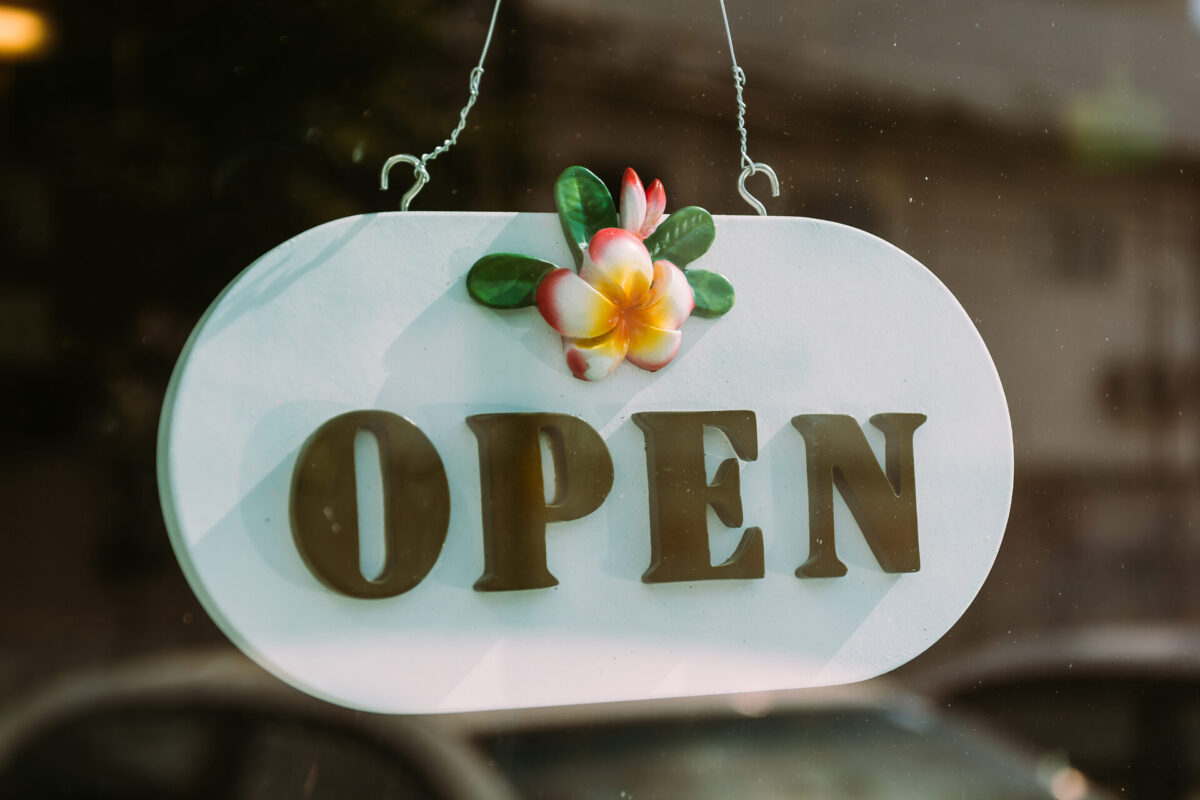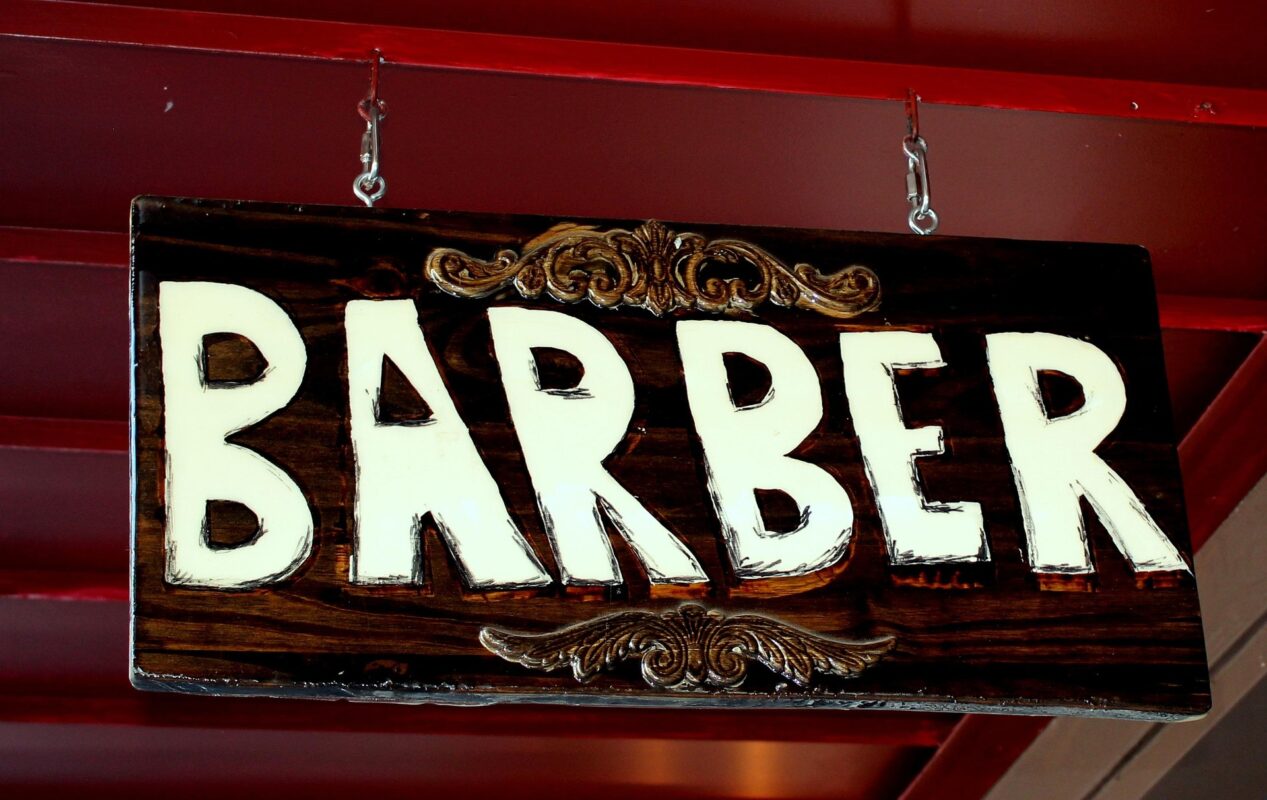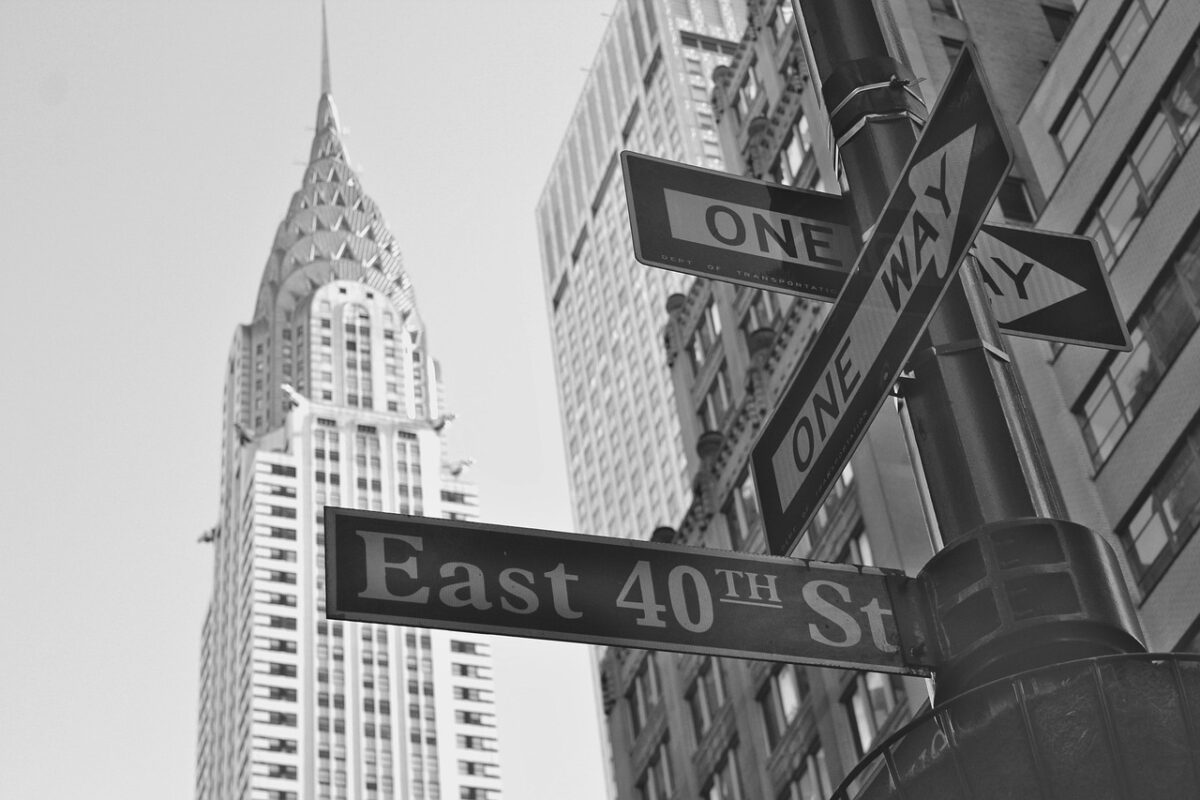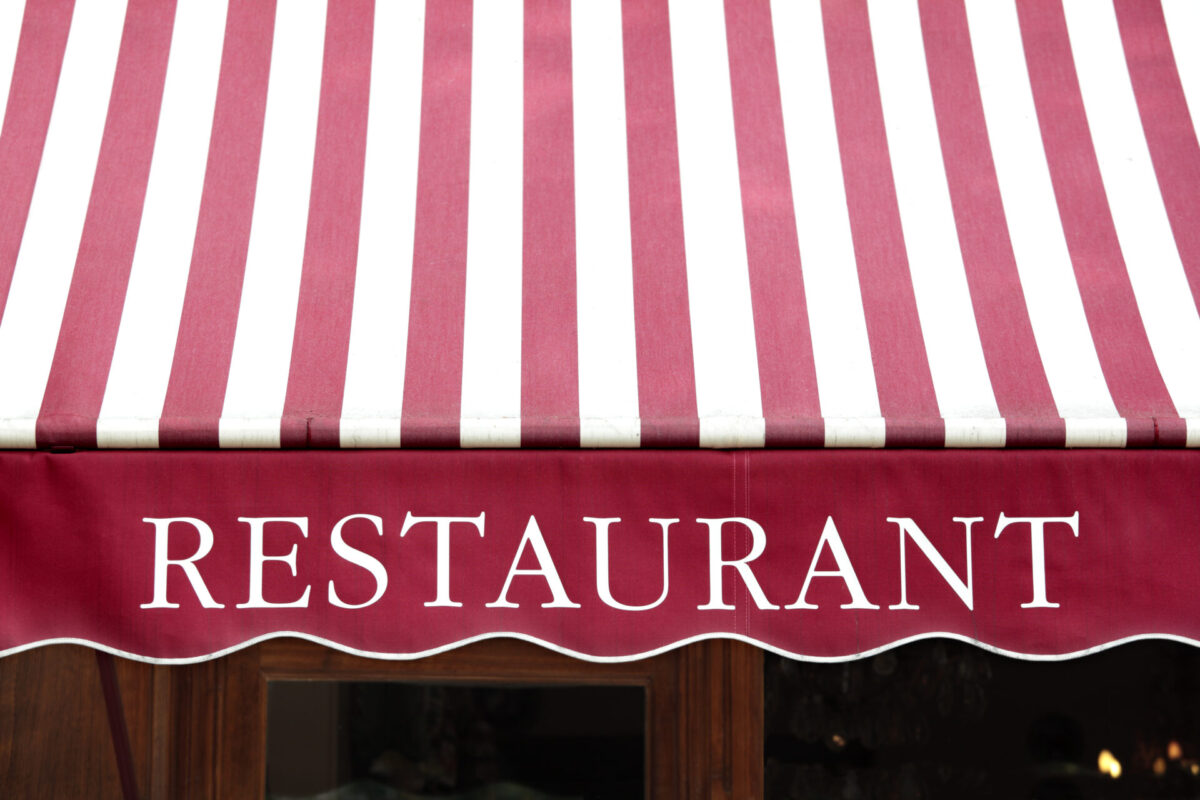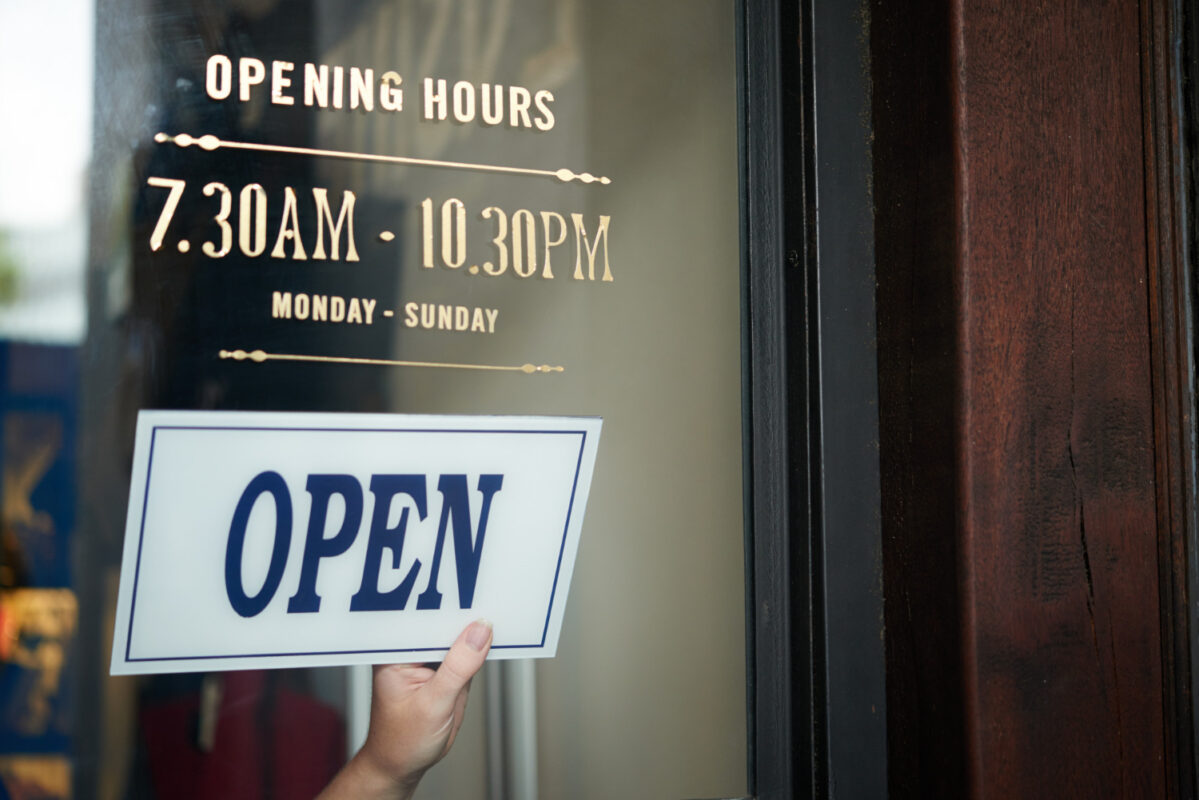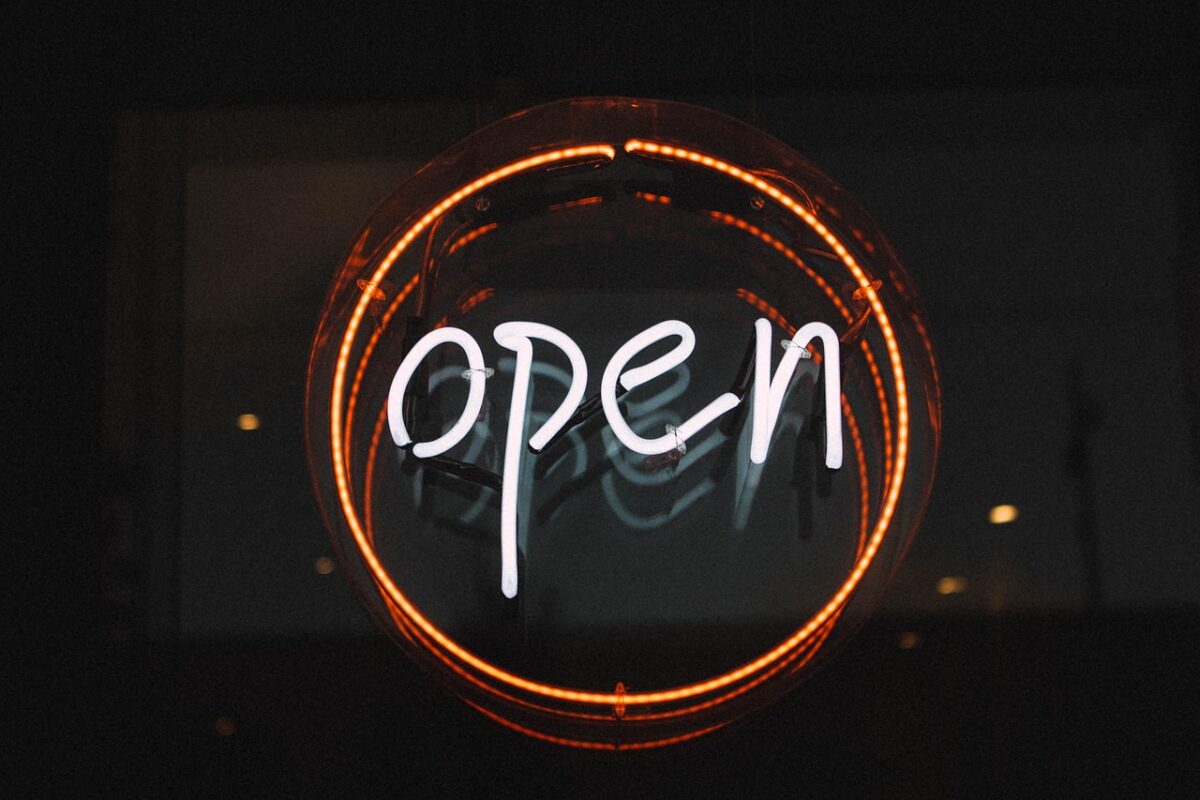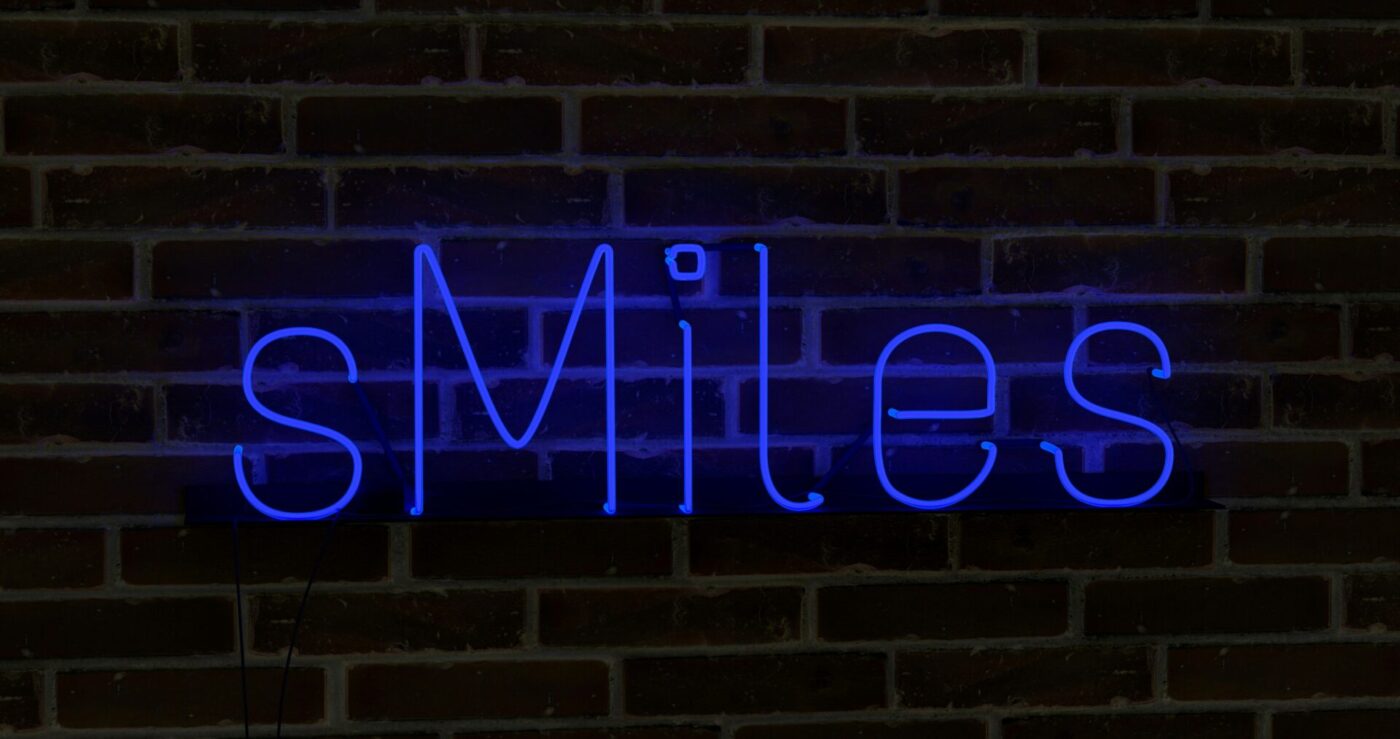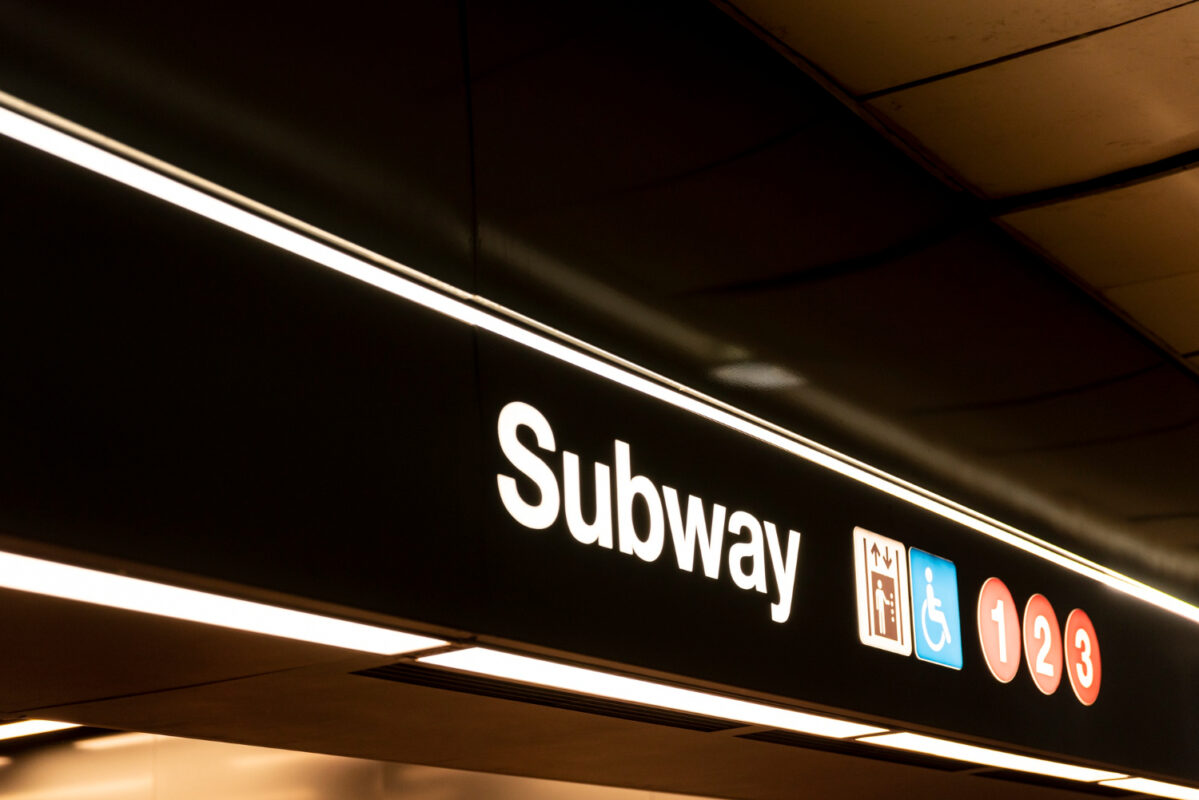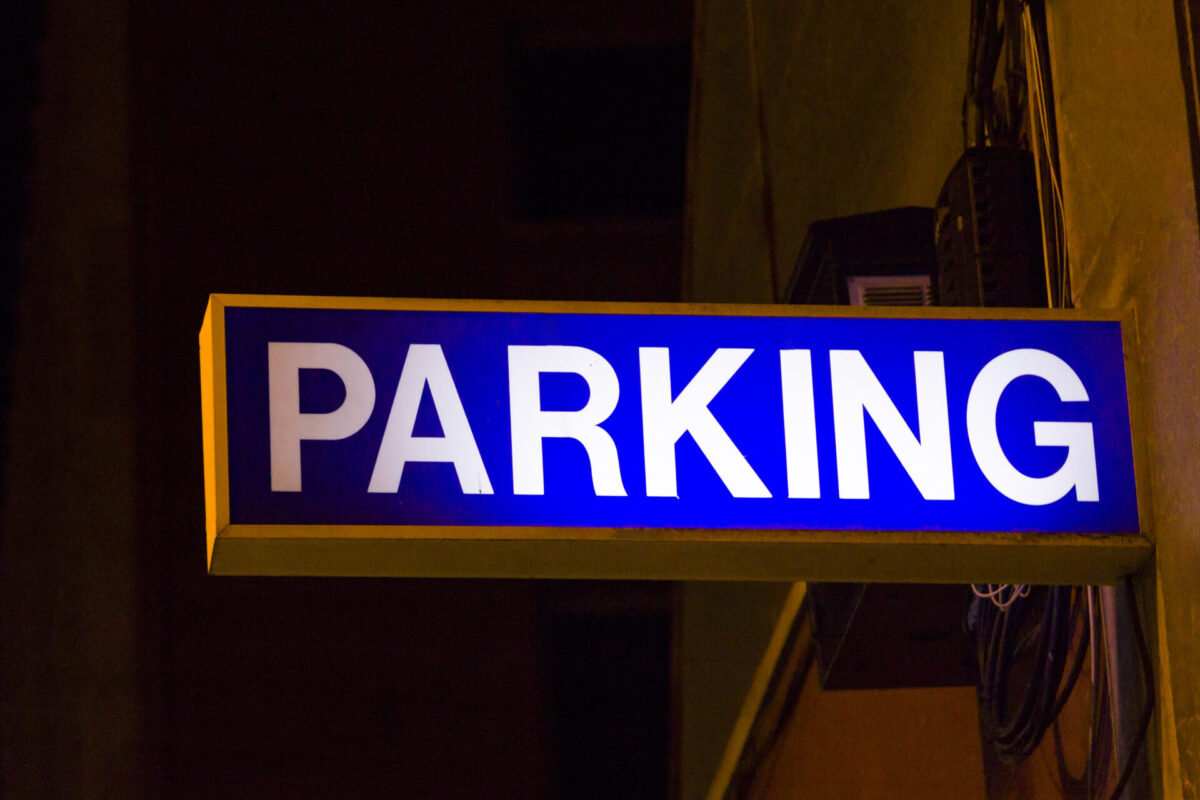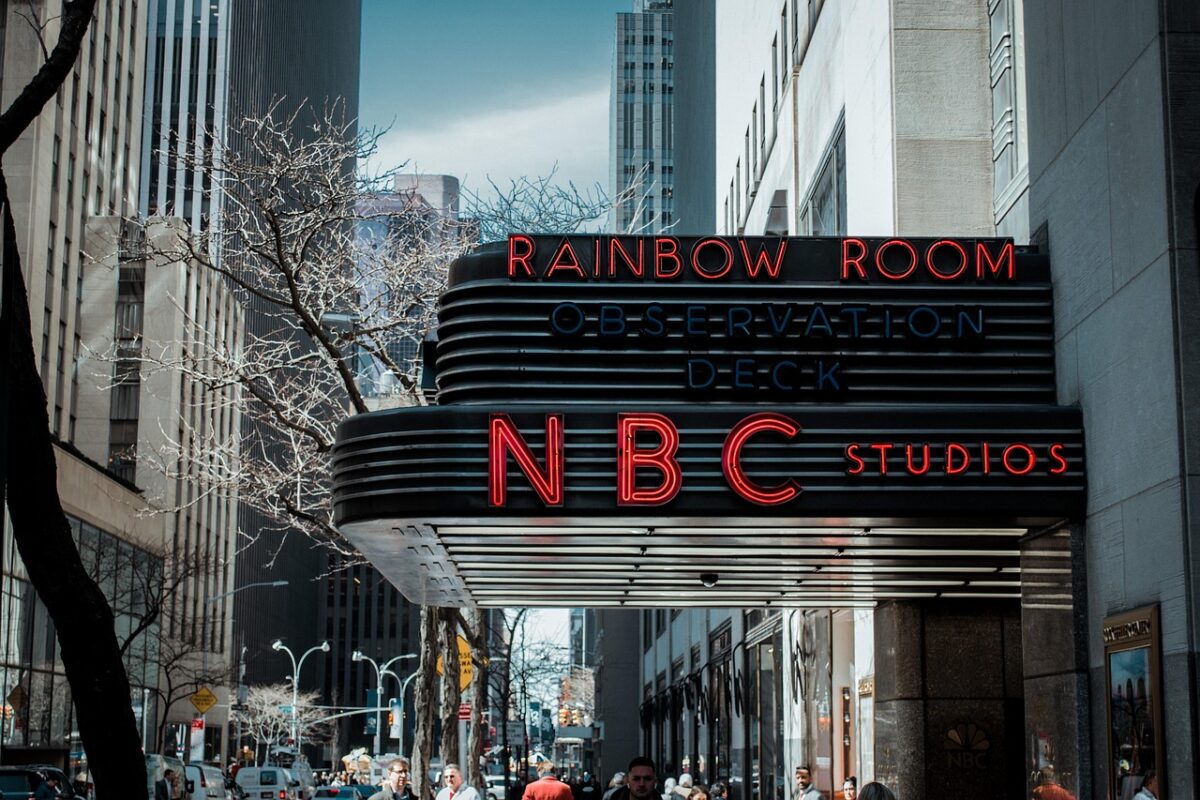
16 Profitable Sign Business Ideas That Stand Out in Any Market
Do you know that the signage business is thriving? The global signage request is projected to increase from $37.8 billion in 2025 to $57.6 billion by 2035. Outdoor signage claims roughly 63% of the market, proving its dominance. So, if you are exploring sign business ideas, keep on reading!
Key takeaways
• 3D and channel letter signs deliver dimensional branding for retail businesses, but light box signs provide a cost-effective alternative for small shops.
• Illuminated signs, such as neon, light box, pylon, and marquee displays, ensure standout business presence in high-traffic areas, while blade signs offer a pedestrian-friendly alternative for urban settings.
• Yard signs, banners, and sandwich boards work wonderfully for localized campaigns, while wall signs and canopies deliver high-impact alternatives for long-term brand recognition.
16 Sign Business Ideas to Try On
Here are 16 profitable sign business ideas to trigger your first step of success. Keep reading.
1. 3D Signs: Adding Depth That Draws People In
Barbershop signage (Source: Pixabay - Renee_Olmsted_Photography)
Barbershop signage (Source: Pixabay – Renee_Olmsted_Photography)
Flat designs can blend into the background. 3D signs, on the other hand, leap forward, creating shadows and dimension. Shops, restaurants, and service providers use them to create a stronger impression.
Walk through any city and you’ll spot plenty of business sign examples in 3D. Everything from bold lettering to sculpted logos.
2. Light Up Outdoor Signs: Visibility Around the Clock
Pedestrian Crosswalk Sign (Source: Freepik.com)
Illuminated signs don’t take time off. LEDs or neon keep a business visible no matter the hour. In markets with high night traffic, these signs can be the difference between a business being noticed and being ignored. This sign’s consistent market demand is one reason they remain a cornerstone of many sign business ideas.
3. Channel Letter Signs: Professional Branding at Scale
A blue neon sign glowing in daylight (Source: Unsplash - Mariia Shalabaieva)
A blue neon sign glowing in daylight (Source: Unsplash – Mariia Shalabaieva)
Channel letters are frequently visible on retail shops and business buildings. The individual letters, often lit from within, provide clarity from a distance and look sharp up close. Retail strips and urban centers are full of these signs, reinforcing the brand’s presence both day and night.
4. Light Box Signs: Constant, Even Illumination
Subway lightbox sign (Source: Freepik.com)
Light box signs work like miniature billboards, offering even lighting across the display. They shine in sectors like retail and quick-service dining, where a sign’s visibility matters as much as its content.
5. Pylon Signs: Attention from the Highway
Coulee Bank Monument Sign (Source: Pintererst.com - Chris Clark)
Coulee Bank Monument Sign (Source: Pintererst.com – Chris Clark)
Tall and commanding, pylon signs are built to reach the eyes of drivers long before they arrive. Gas stations, shopping plazas, and fast-food chains rely on them to capture decision-making moments from afar.
6. Blade Signs: Pedestrian-Friendly Advertising
Parking Blade Sign (Source: Freepik.com)
Blade signs are perfect for attracting attention in narrow, pedestrian-heavy areas, as they stand upright against a wall to catch the eye of passersby. As urban shopping areas revitalize, these signs are regaining popularity among small businesses and boutique stores.
7. Outdoor Reader Boards: Updating the Message
Outdoor 3D Dimensional Letter Sign (Source: Pixabay.com - Fernando González)
Outdoor 3D Dimensional Letter Sign (Source: Pixabay.com – Fernando González)
Outdoor reader boards give businesses flexibility. Changeable letters or digital displays allow for quick updates on promotions, events, or humorous messages. Their adaptability makes them a valuable option among the sign business ideas.
8. High-Visibility Signs: Standing Out in Crowded Spaces
Colorful Signage (Source: Pixabay.com - Pexels)
Colorful Signage (Source: Pixabay.com – Pexels)
Bright colors, interesting drawings, and lighting create designs that can’t be overlooked. These elements are crucial for cutting through visual clutter and are easily recognizable.
9. Marquee Signs and Lettering: A Vintage Touch
Sale Marquee Sign
Sale Marquee Sign (Source: Freepik.com)
Marquee-style signs, with rows of bulbs or illuminated lettering, evoke nostalgia. They remain popular in theaters, entertainment venues, and hospitality settings. Their charm and visibility make them reliable for drawing attention.